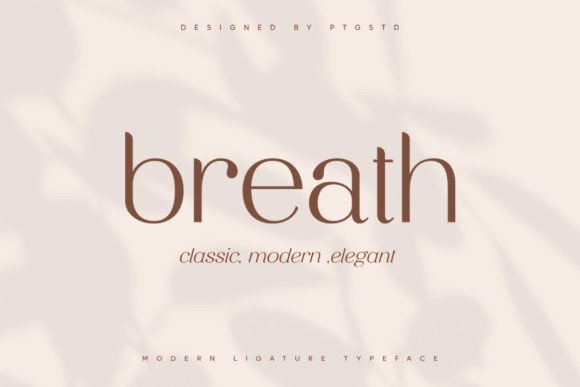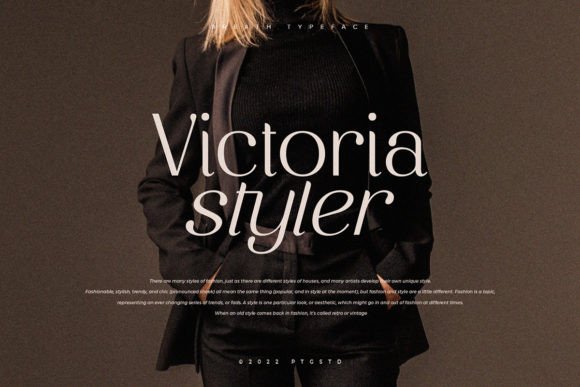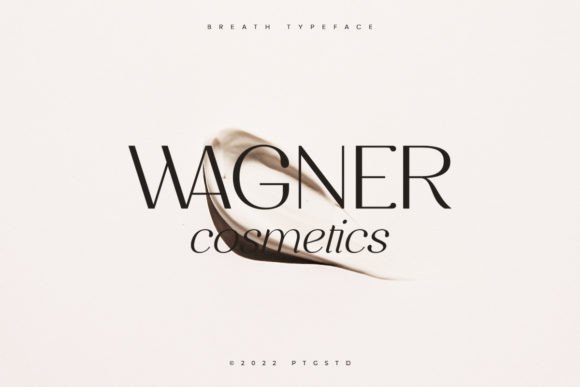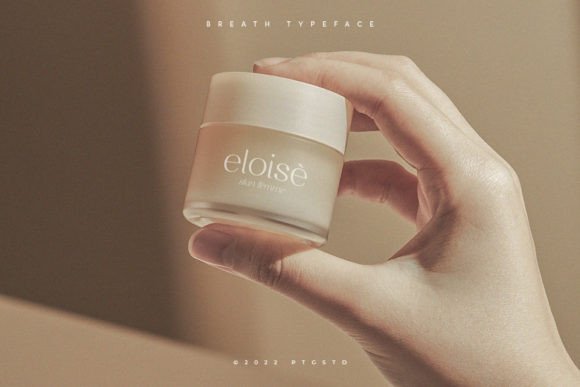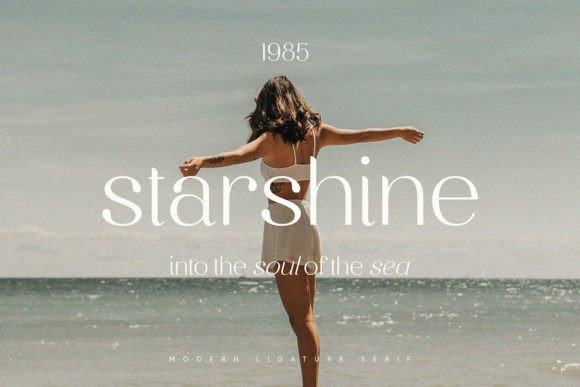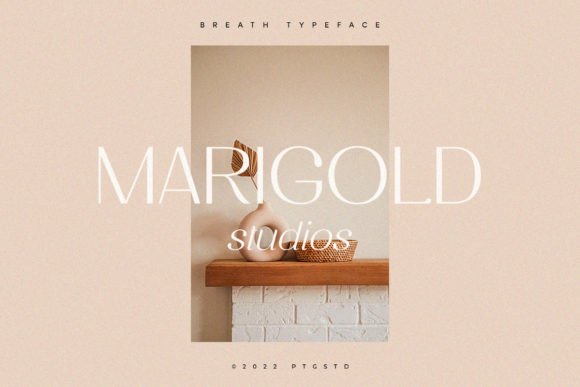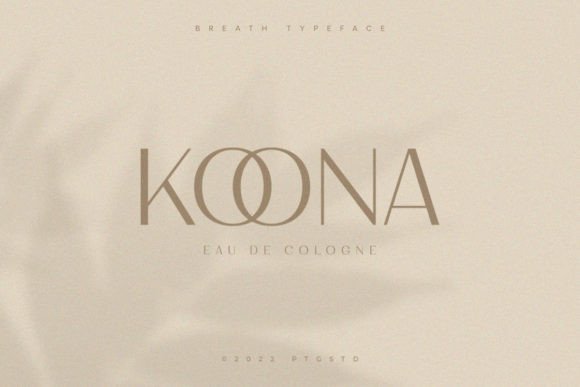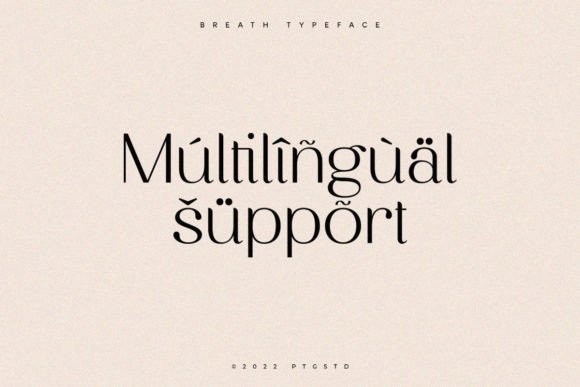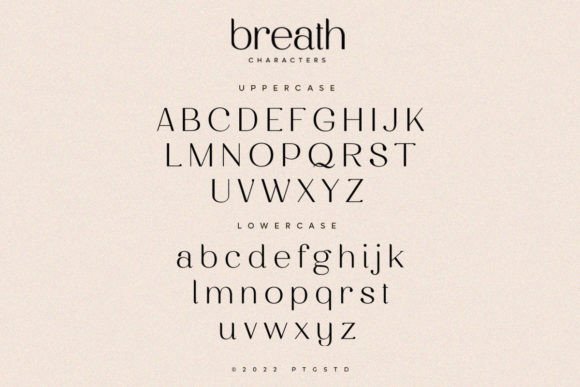
Breath is a stylish and incredibly elegant serif font. It is defined by smooth curves and is perfect for fashion branding or editorial designs. Use this font for your designs and explore its endless possibilities.